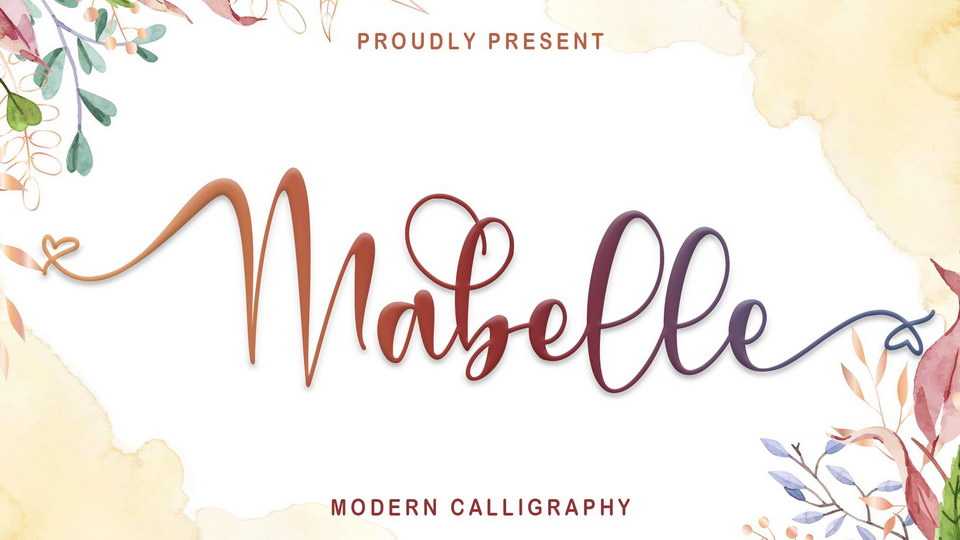
Download Mabelle font, a romantic and festive handwritten typeface with a beautiful love. Mabelle is ideal for holiday-themed greeting cards, Christmas, weddings, and any crafting project that requires a romantic touch.